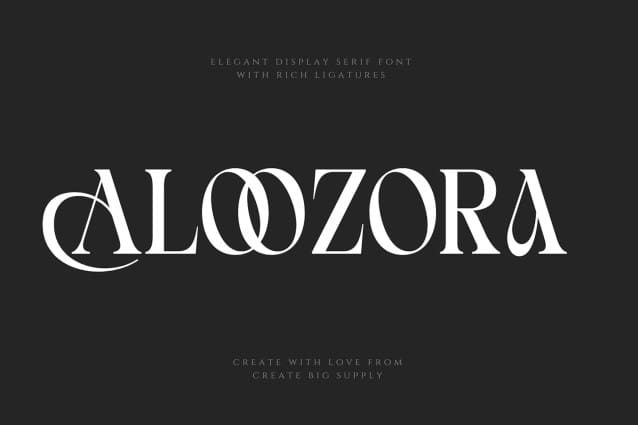
Aloozora Font
Aloozora Font – Elegant Display Serif font. This typeface is meticulously crafted to bring sophistication to your design projects. Ideal for brands, logos, and fashion designs, this font brings an elegant touch to any project. With its unique ligatures and stylistic variations, it ensures a sophisticated and versatile look. The font’s clean lines and modern aesthetic make it an excellent choice for display purposes, ensuring your work stands out. Whether you’re designing for print or digital, this display serif font is a perfect fit for a variety of contexts. Its readability and timeless elegance make it an invaluable asset for designers looking to create impactful and memorable designs. Enhance your brand image with a font that inspires confidence and style. Try our Elegant Display Serif font today and take your design projects to the next level.